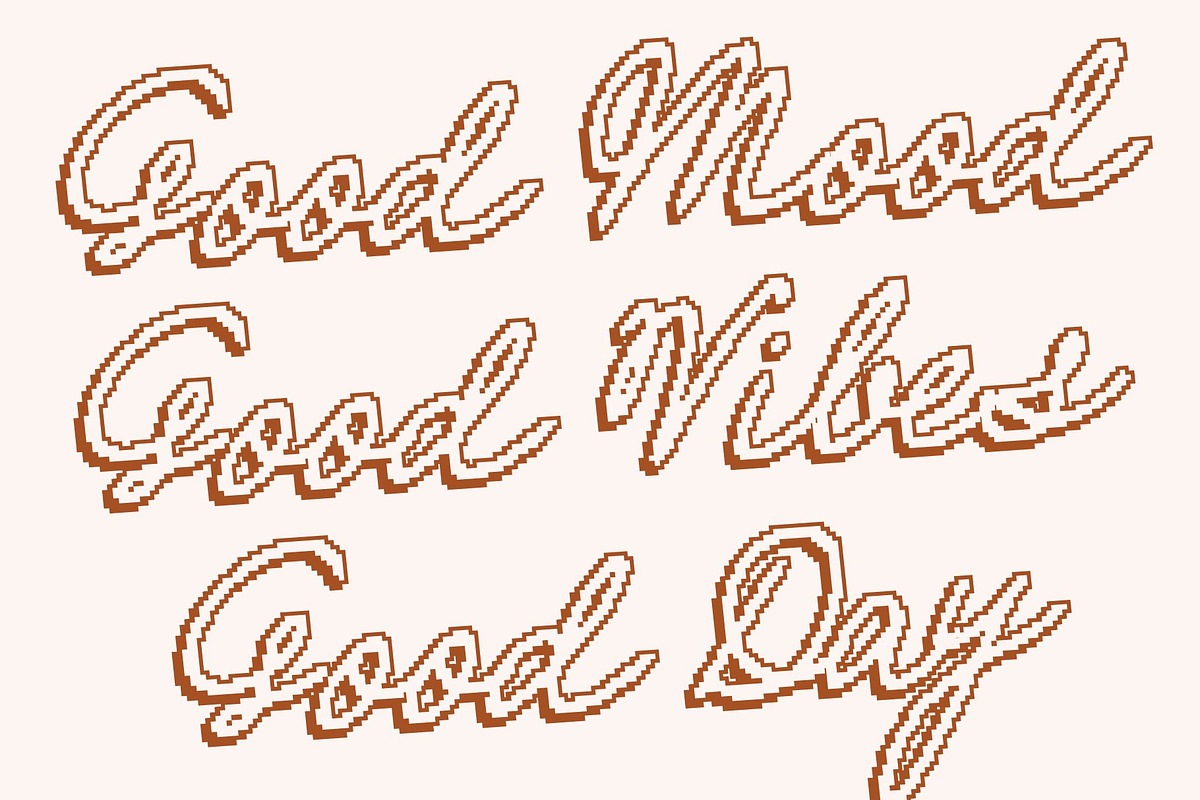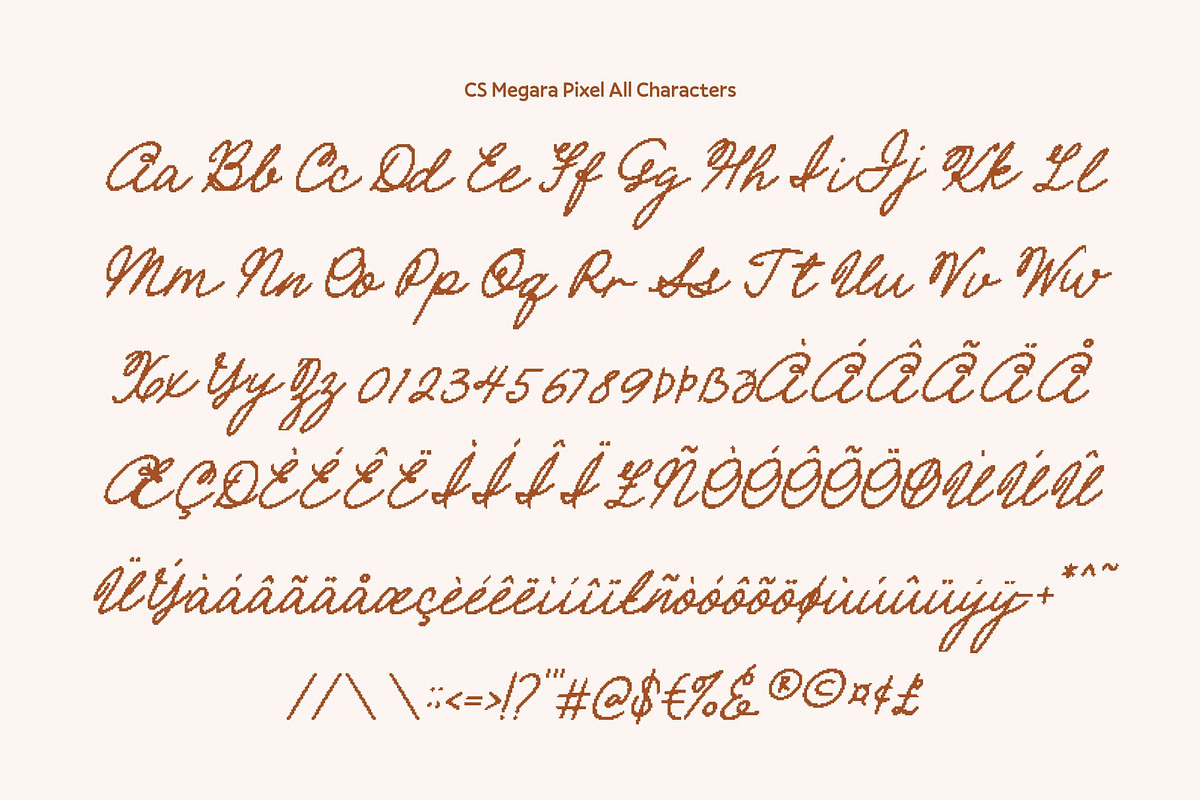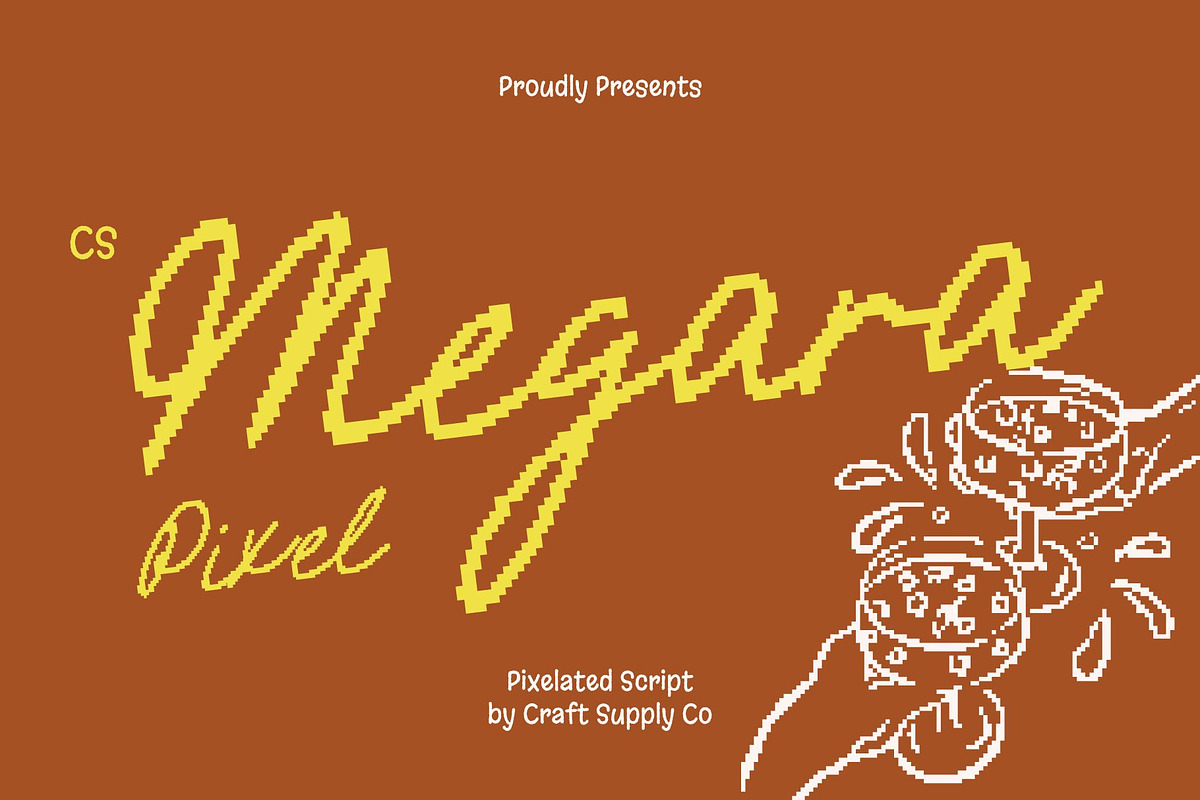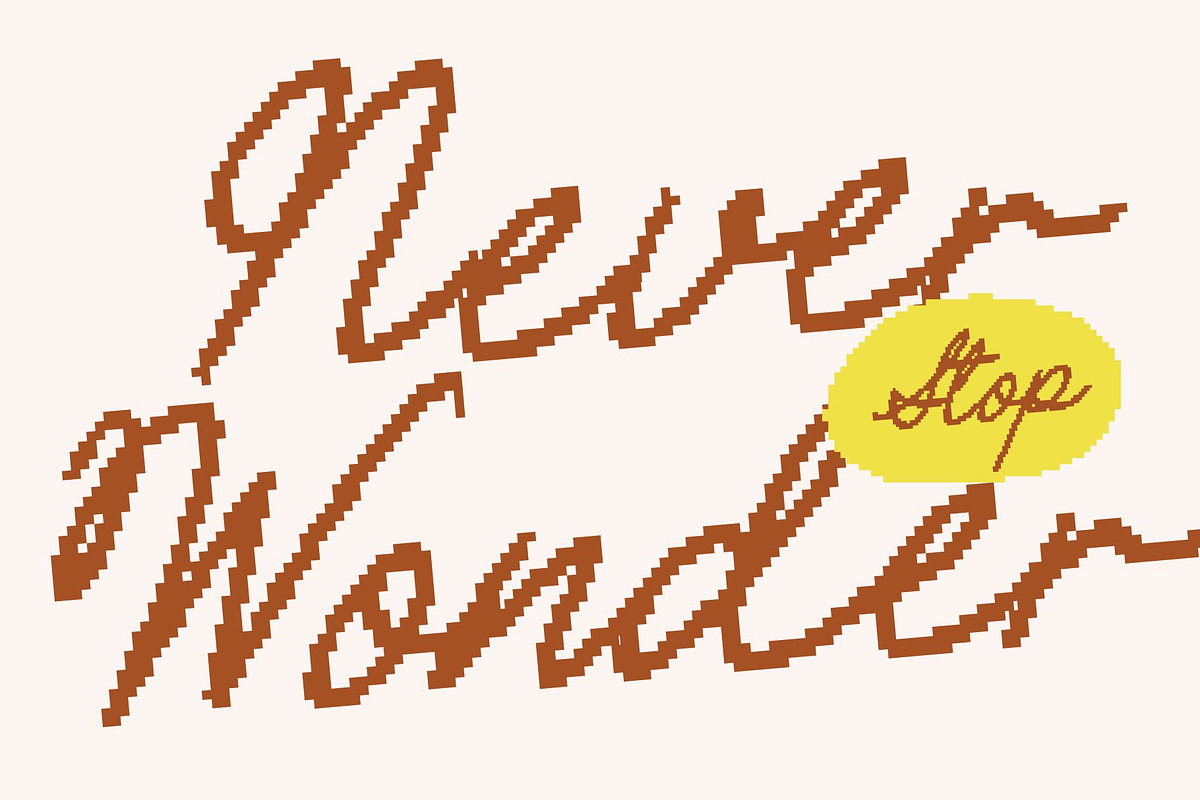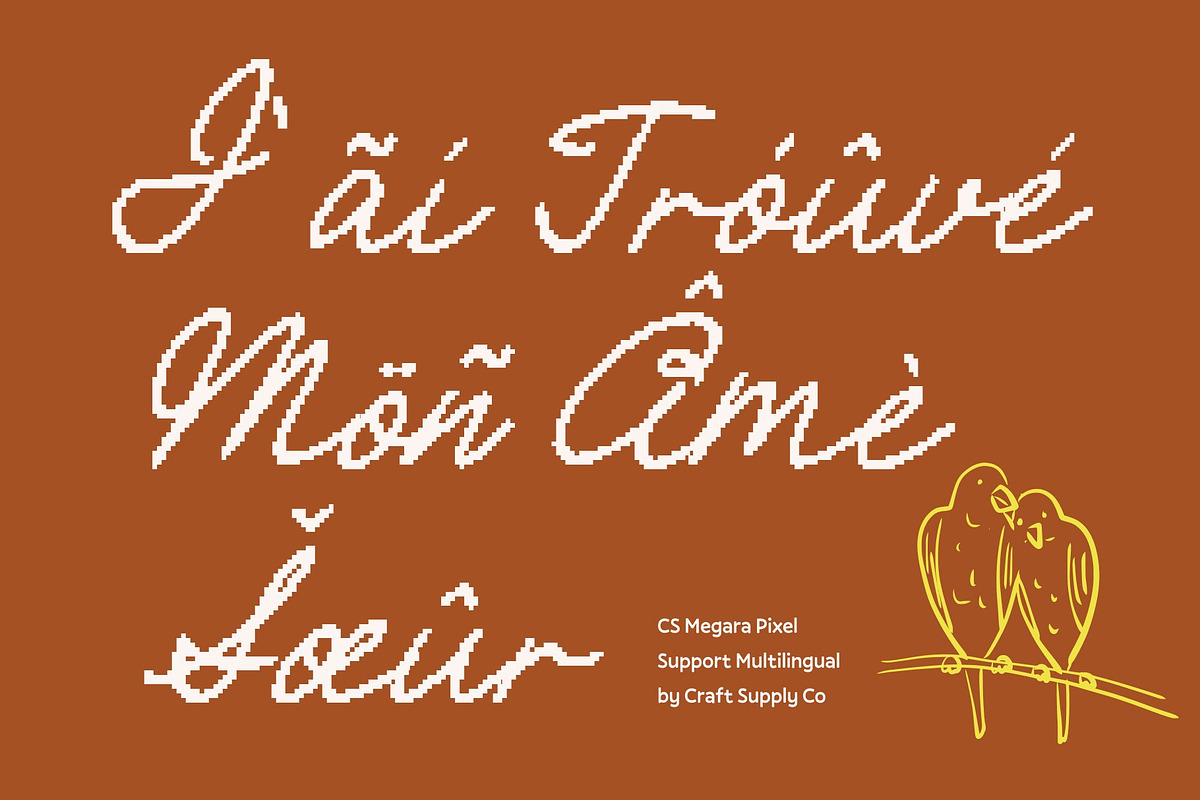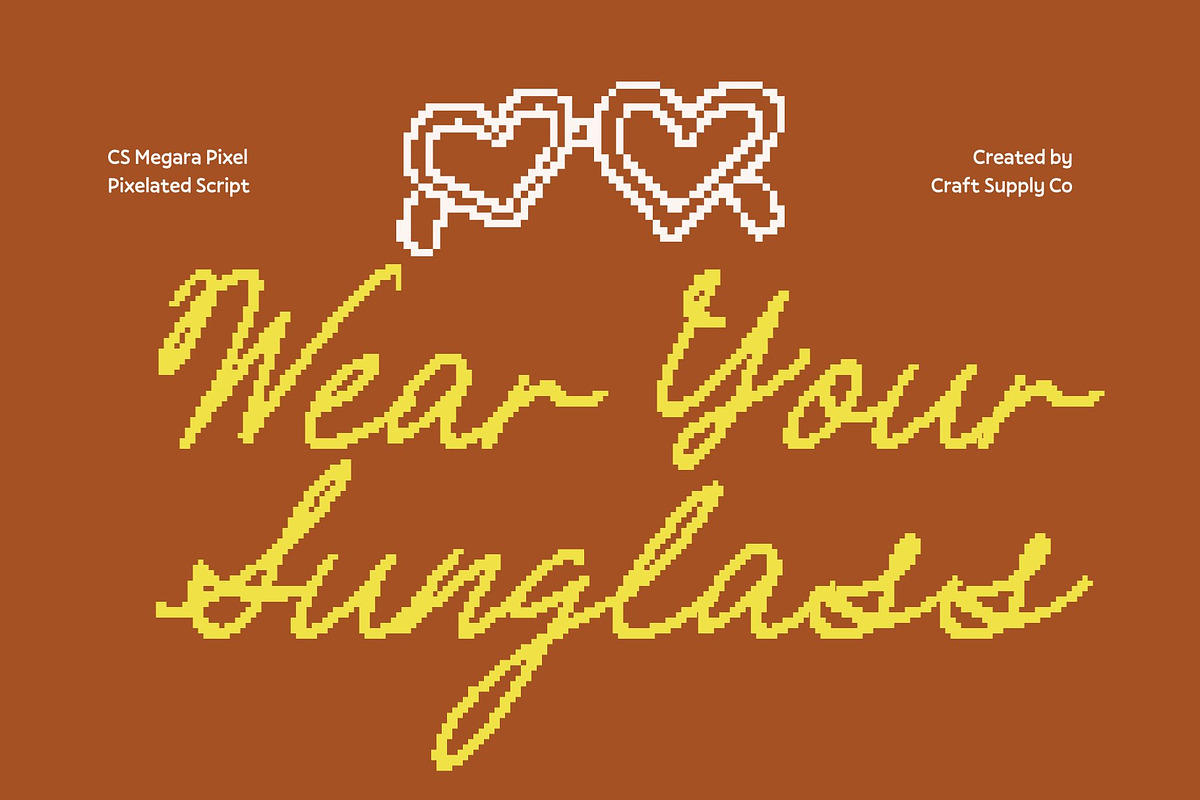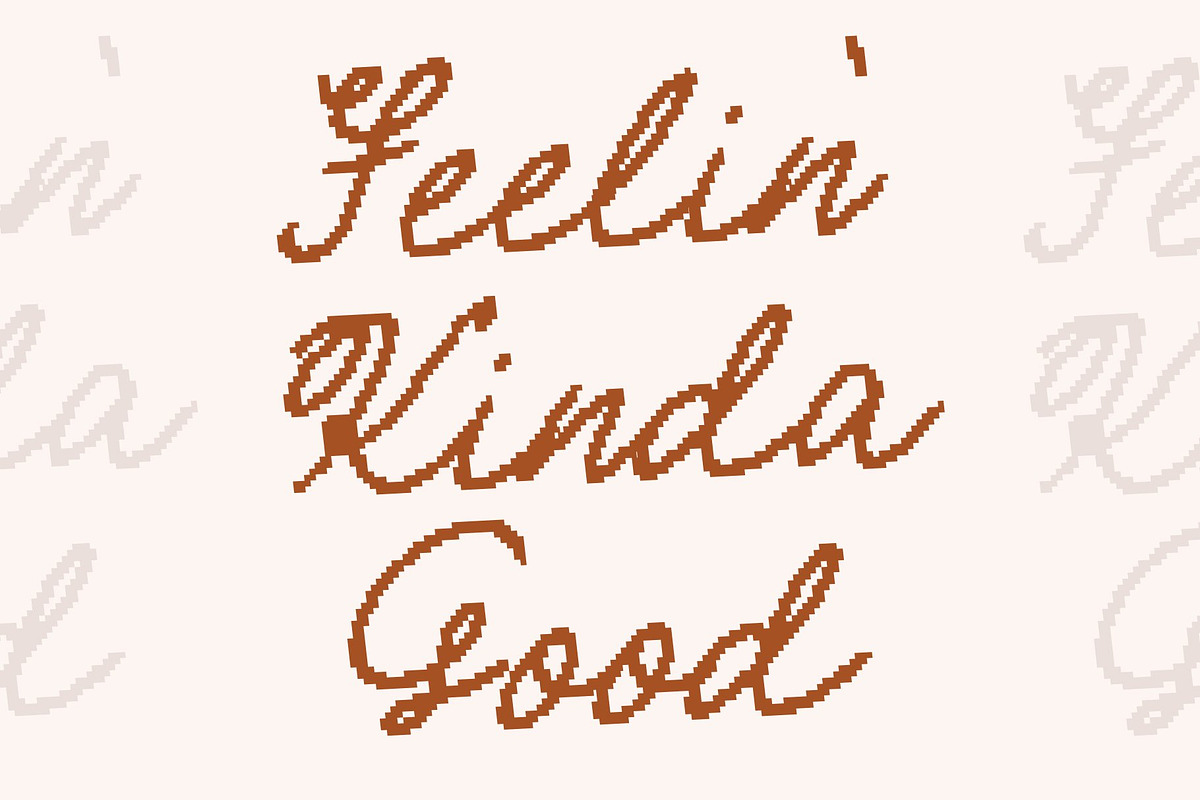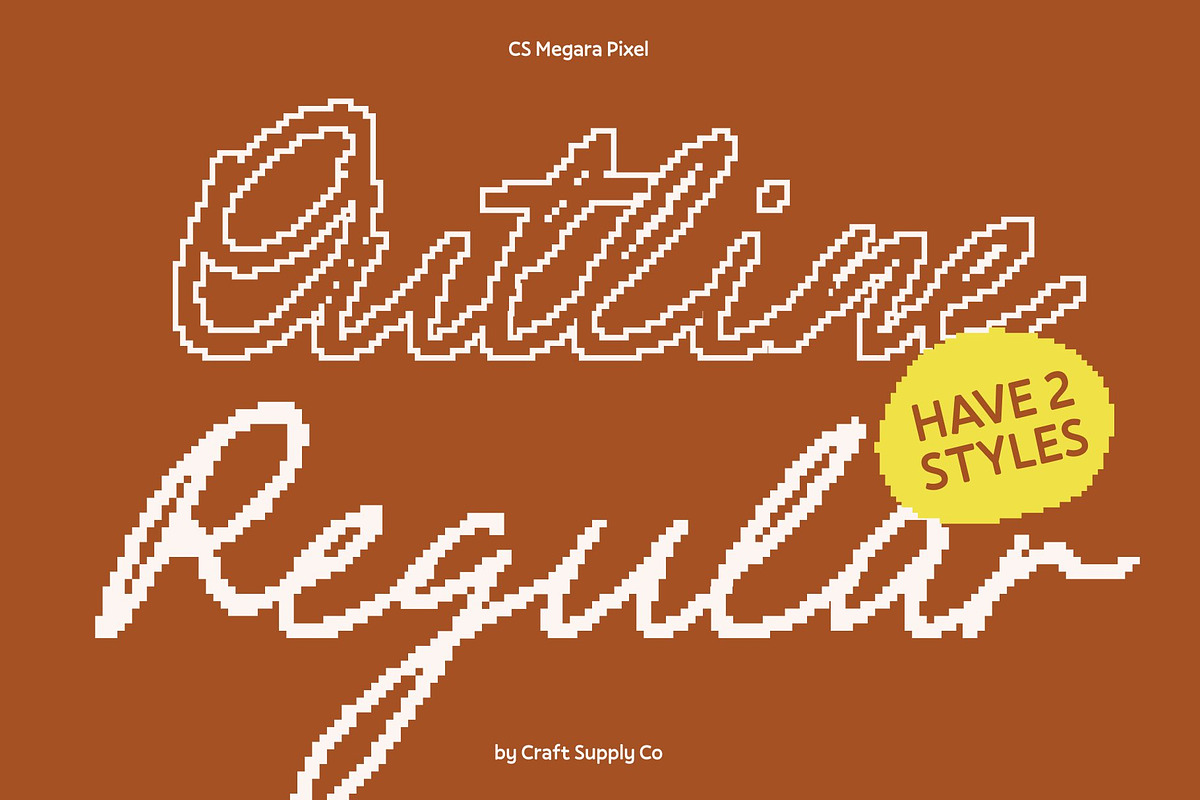
CS Megara Pixel
CS Megara Pixel – Elegant Script with Modern Digital Refinement
Branding Script Font with Graceful Pixel Flow This is a sophisticated script font that merges smooth, flowing lines with subtle pixel-inspired detailing. Designed for luxury branding and modern design, it balances elegance, readability, and digital character, creating a refined, high-end aesthetic with a contemporary twist.
Modern Elegance Meets Pixel Precision Each monoline letterform maintains clarity and harmony, while gentle pixel accents add a fresh, tech-inspired edge. This combination preserves the script’s graceful rhythm while giving it a unique digital personality, perfect for designs that need sophistication with a hint of modern nostalgia.
Refined, Polished, and Digitally Expressive The seamless connections and flowing curves of this font create a harmonious composition that feels luxurious yet approachable. The pixel detailing introduces subtle texture and visual interest, enhancing its appeal for creative, modern, and editorial contexts.
Perfect for Luxury Branding, Fashion, and Creative Digital Projects Ideal for logos, editorials, packaging, invitations, fashion campaigns, and premium branding, this font brings elegance, clarity, and contemporary flair to every design. Its fusion of classic script beauty with digital refinement ensures projects stand out with sophistication and style.
- CS Megara Pixel Regular
- CS Megara Pixel Outline